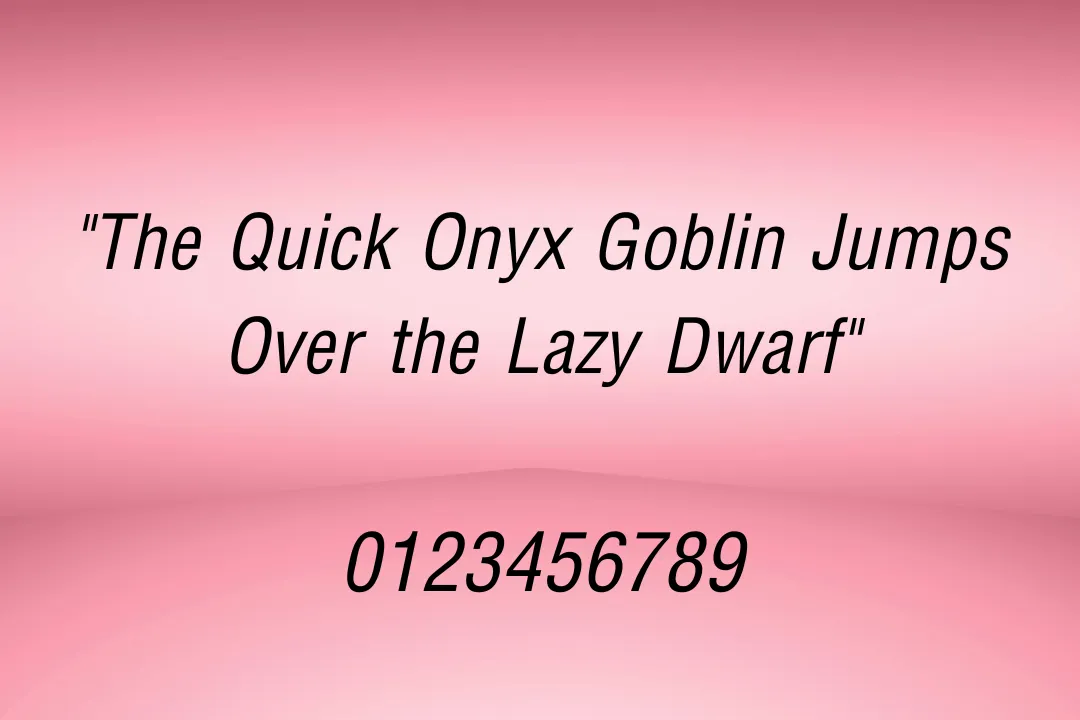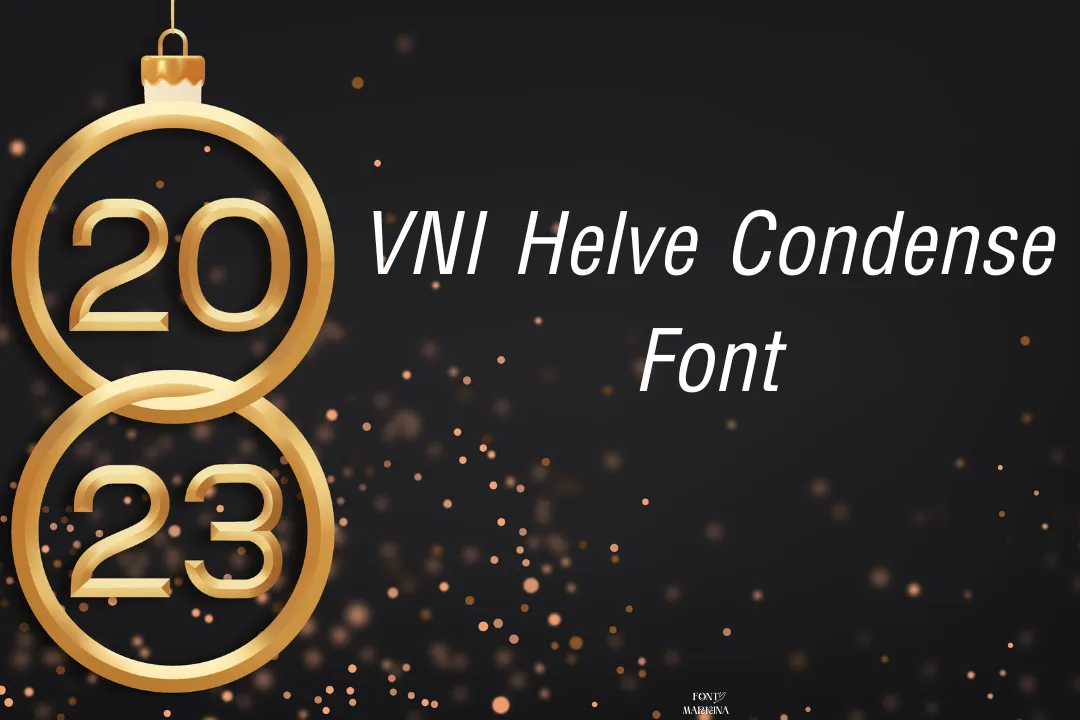
The VNI Helve Condense Font was invented by VNI and is available in a free version with both OTF and TTF file formats. This font is a suitable choice for all your fun purposes and tasks. It looks like the basic serif texture family with a stunning texture look appearance.
This font contains multiple types of weights ( Regular, bold, semi-bold, Italic Normal, Bold-Italic, and italic) and styles with a unique type of alphabet set such as uppercase letters, digits, symbols, lowercase letters, and punctuations. It may be utilized with arciform sans font and create gorgeous designs.
It is utilized to beautify your graphics project and is also perfect for CDN, adobe photoshops, and CSS. The online generator tool of this stunning texture will help you to transform all your simple surfaces into stylish text. This texture has smooth edges and a warm curve.
Uses of VNI Helve Condense Font
Additionally, You may also utilize this font for making logo designs, posters, banners, newspapers, magazines, and much more projects. The copy-and-paste capabilities of this typeface will assist you in completing time-sensitive projects. You are free to copy and paste any text from another website into your projects.
Many designers use this typeface in programs like coral draw, illustrator, canvas, and Adobe Photoshop. This font can be used to create designs for cards, prints, clothing, and many other things.
VNI Helve Condense Font View
What does VNI Helve Condense Font look like?
The VNI Helve Condense texture looks like the alright sans font. It has amazing pairing quality and can be paired with various other fonts and make modern designs.
Where can I utilize the VNI Helve Condense?
You may utilize this font for making logo designs, posters, banners, newspapers, magazines, and much more projects. The copy-and-paste capabilities of this typeface will assist you in completing time-sensitive projects.
Who designed the VNI Helve Condense Font?
The VNI Helve Condense typeface was invented by VNI and is available in a free version with both OTF and TTF file formats. This font is a suitable choice for all your fun purposes and tasks.